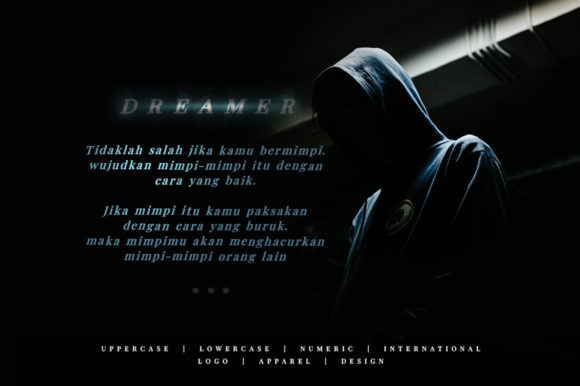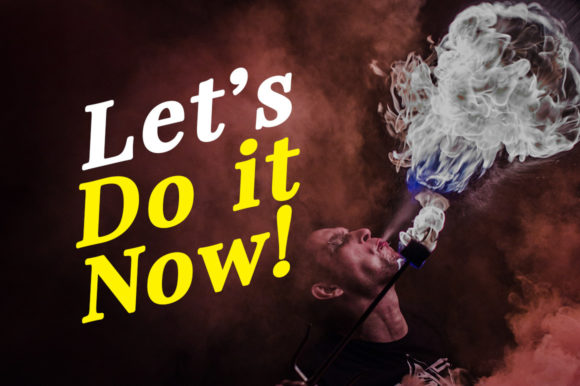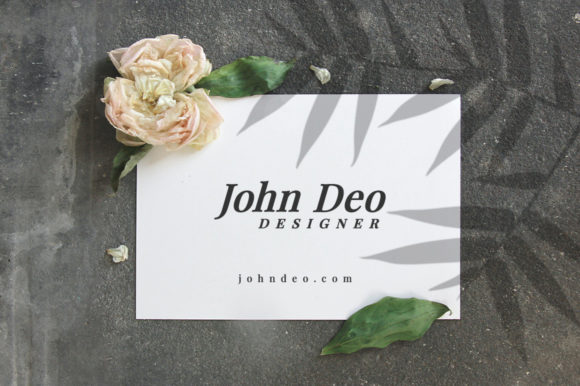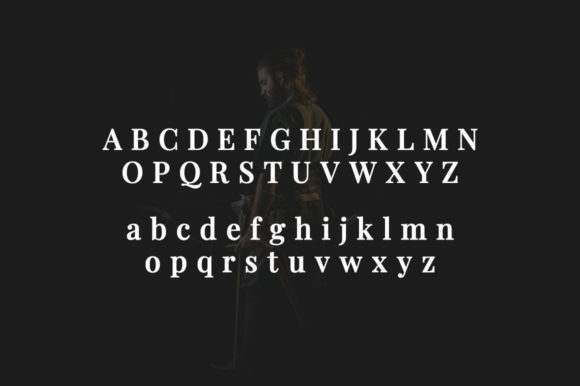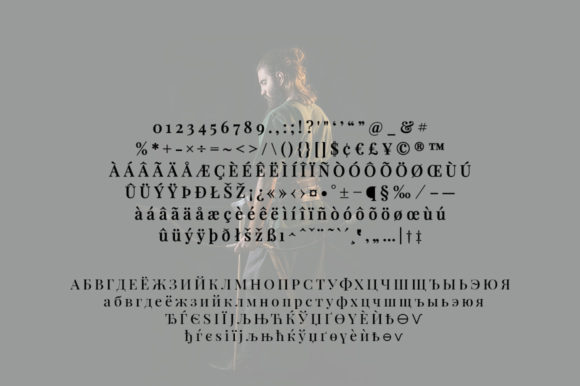
Discover the Power of Garfield Fade Family Font: Elevate Your Designs with this Versatile Serif Typeface
Are you a designer or crafter looking for a font that can add a touch of sophistication and elegance to your creations? Look no further than the Garfield Fade Family Font. This wonderful serif font family is versatile, bold, and features solemn characters that can enhance every design project. In this article, we’ll explore the features and benefits of Garfield Fade, and why it’s a must-have addition to your font library.
What is Garfield Fade Family Font?
Garfield Fade is a serif font family that boasts a unique and distinctive style. Its bold and solemn characters make it perfect for a wide range of design projects, from headings and titles to body text and more. The font features a classic serif design with a modern twist, making it both timeless and contemporary.
Key Features of Garfield Fade Family Font
- Versatility: Garfield Fade is a versatile font that can be used for a variety of design projects, including logos, headings, titles, and body text.
- Bold and Solemn Characters: The font features bold and solemn characters that add a touch of sophistication and elegance to any design.
- Classic Serif Design: Garfield Fade boasts a classic serif design with a modern twist, making it both timeless and contemporary.
- Wide Range of Uses: This font can be used for a wide range of design projects, including branding, advertising, packaging, and more.
Benefits of Using Garfield Fade Family Font
- Enhance Your Designs: Garfield Fade can enhance every design project with its bold and solemn characters, adding a touch of sophistication and elegance.
- Stand Out from the Crowd: With its unique and distinctive style, Garfield Fade can help your designs stand out from the crowd and grab attention.
In conclusion, Garfield Fade Family Font is a wonderful serif font family that can enhance every design project with its bold and solemn characters. Its versatility, classic serif design, and wide range of uses make it a must-have addition to your font library. Whether you’re a graphic designer, digital artist, crafter, or web designer, Garfield Fade is the perfect choice for adding a touch of sophistication and elegance to your creations.